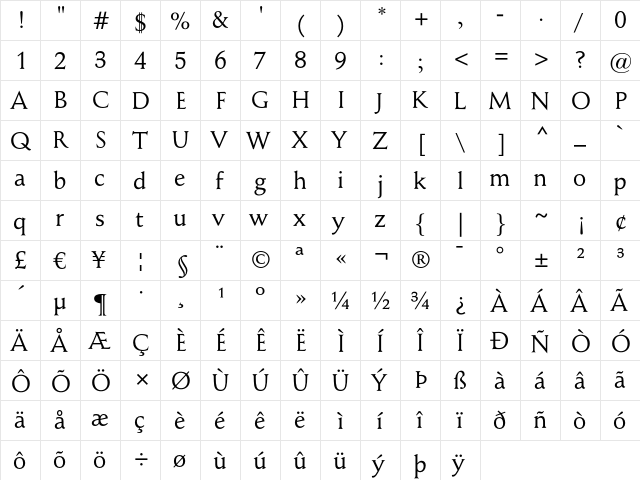
NewRenaissance Regular
Design Context for NewRenaissance Typeface
NewRenaissance offers clean, dependable letterforms without strong stylistic allegiance, making it a practical choice for designers who need flexibility.